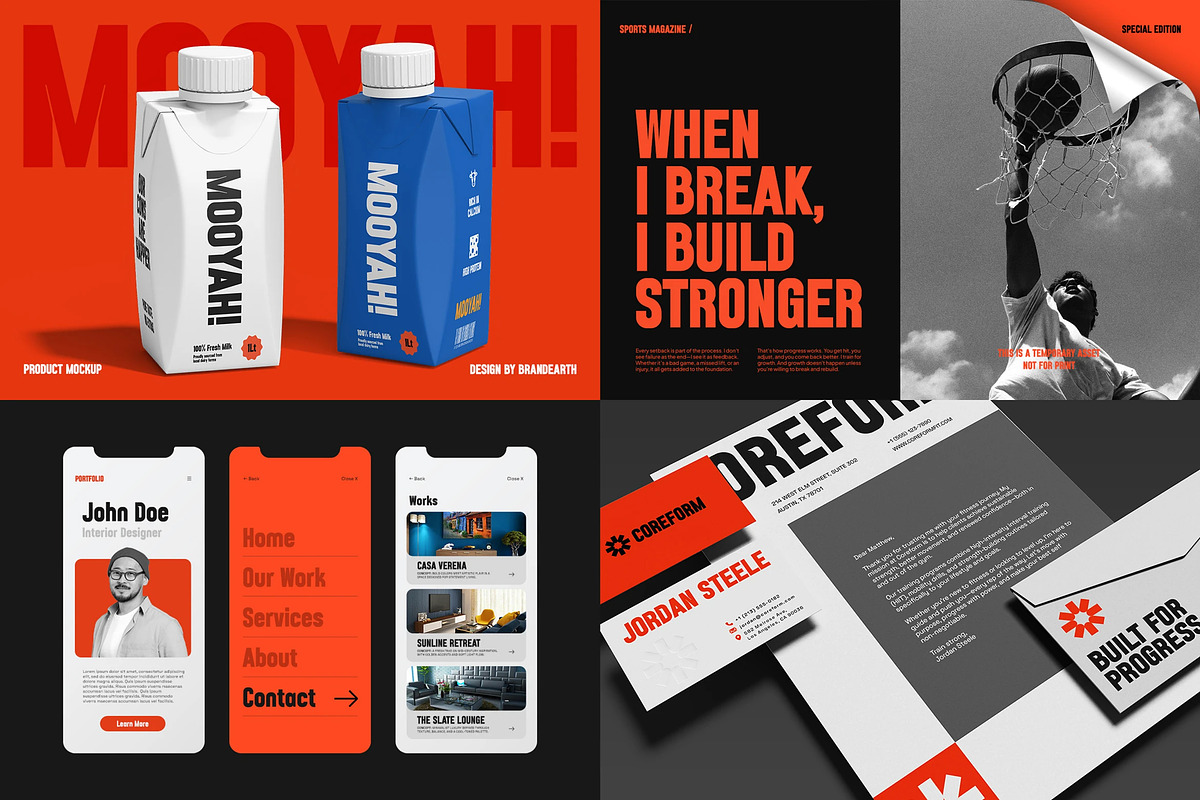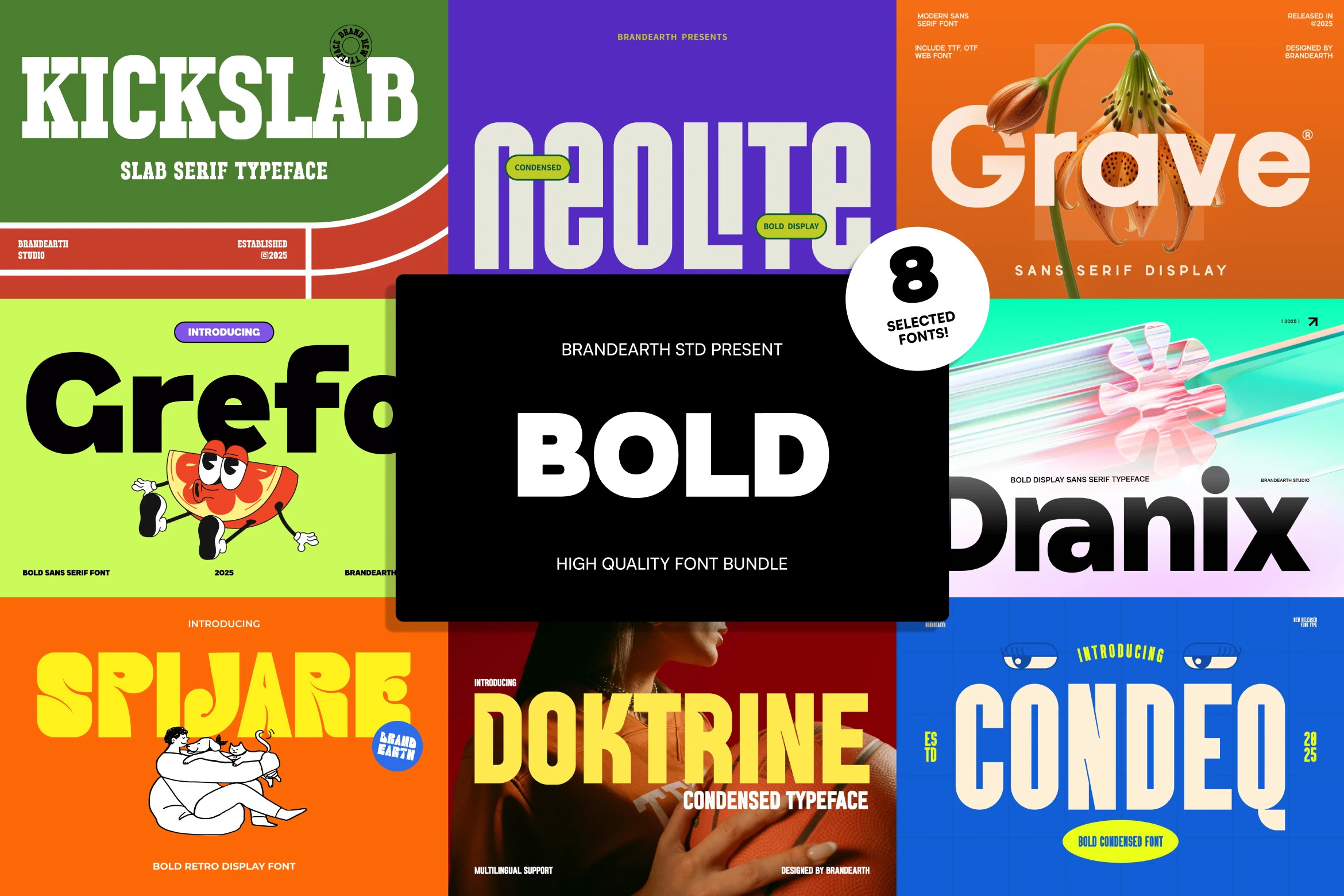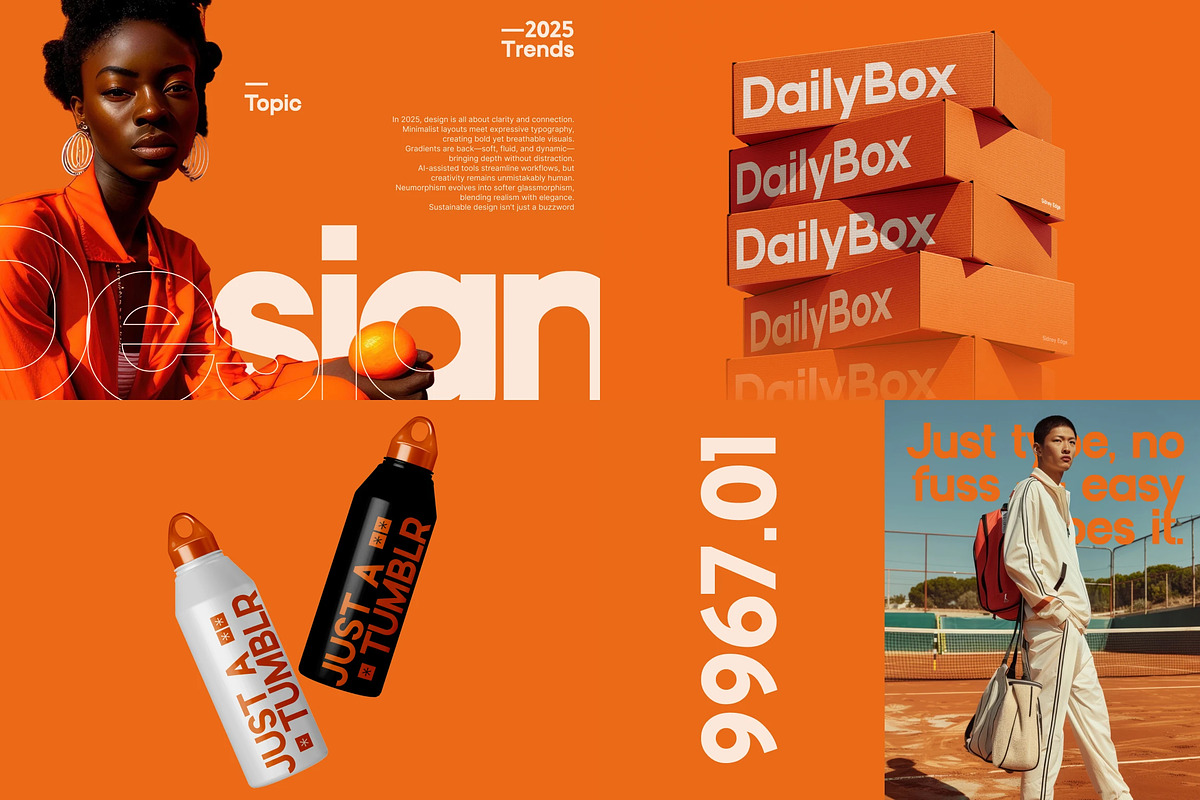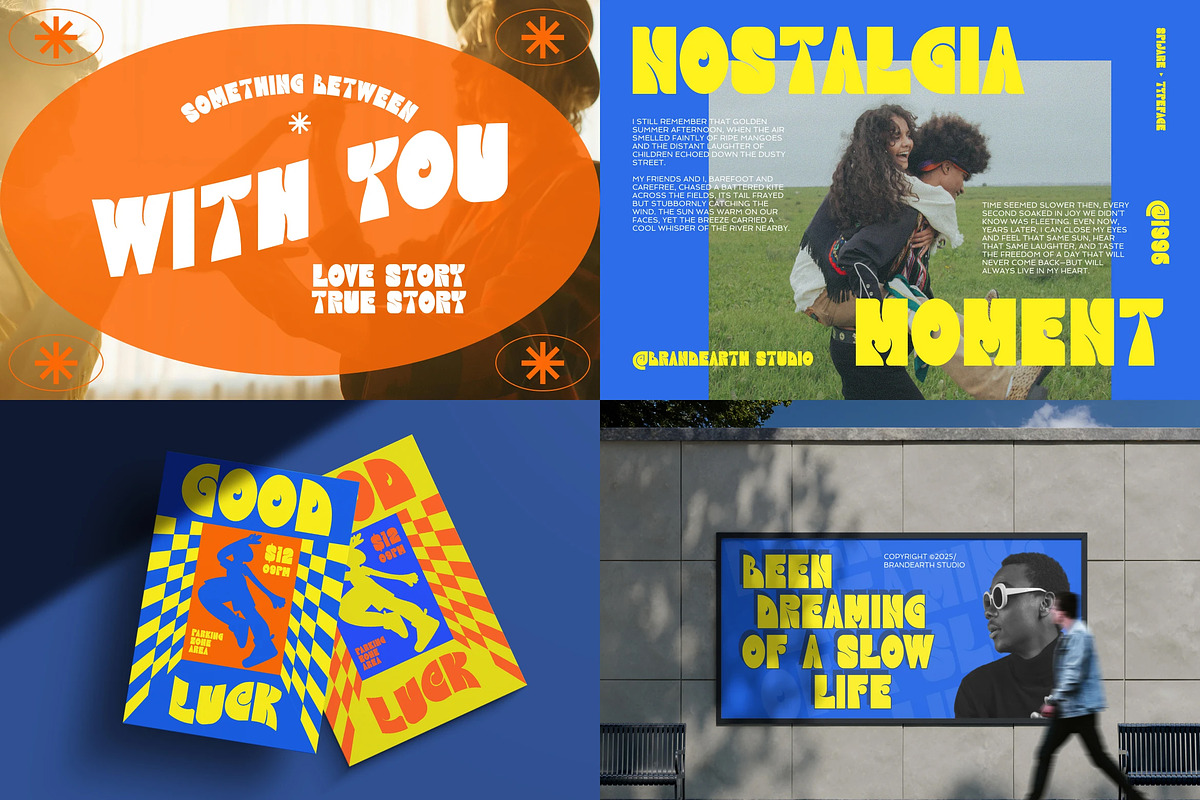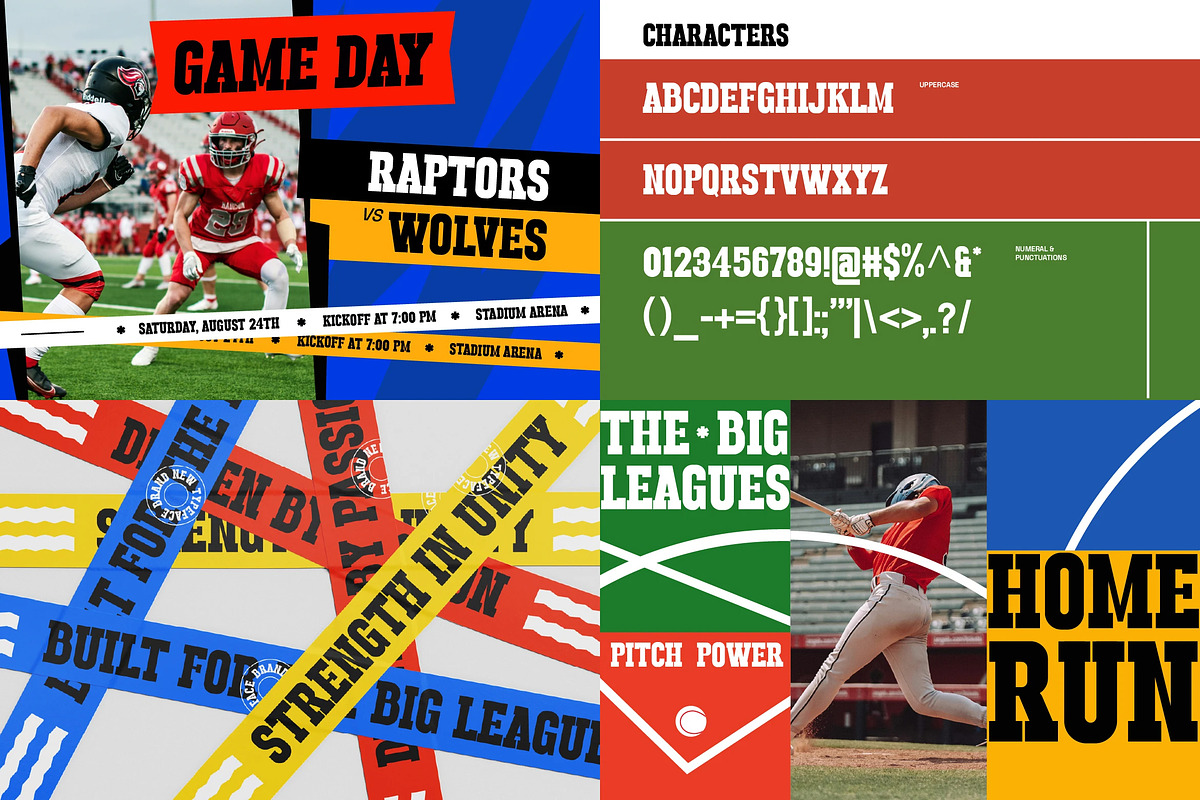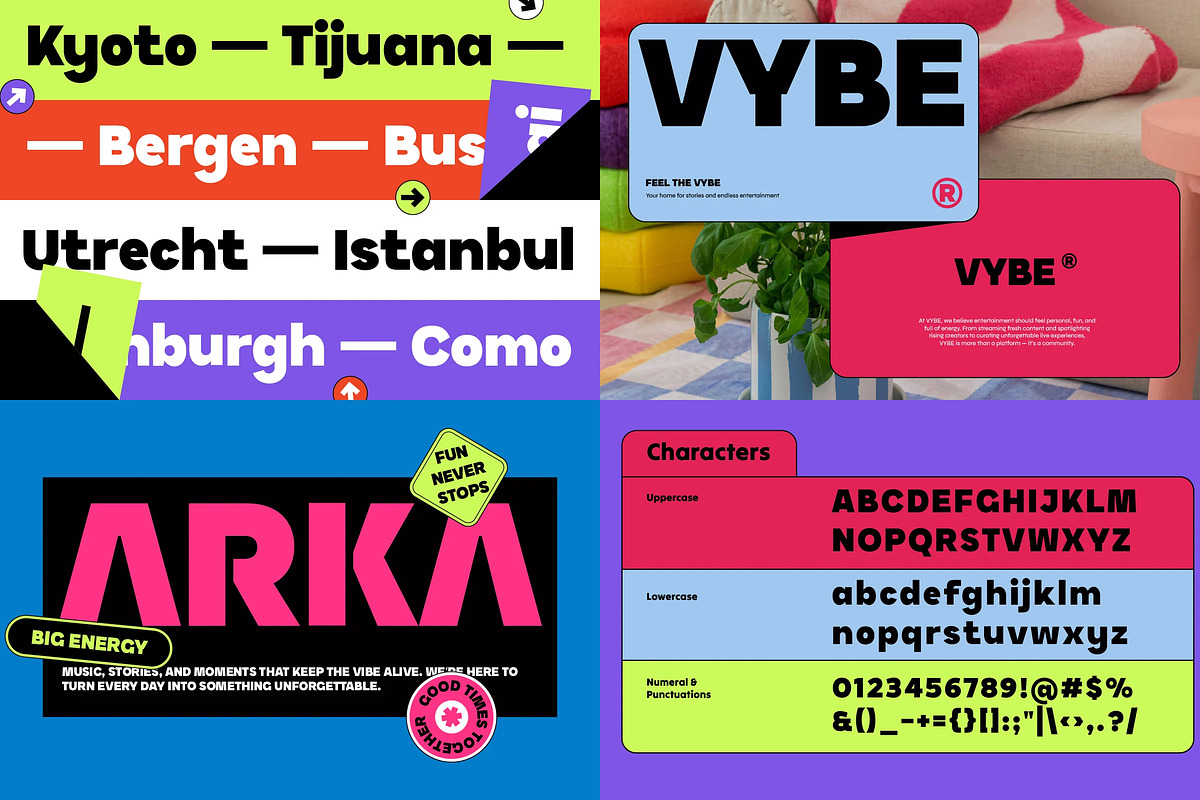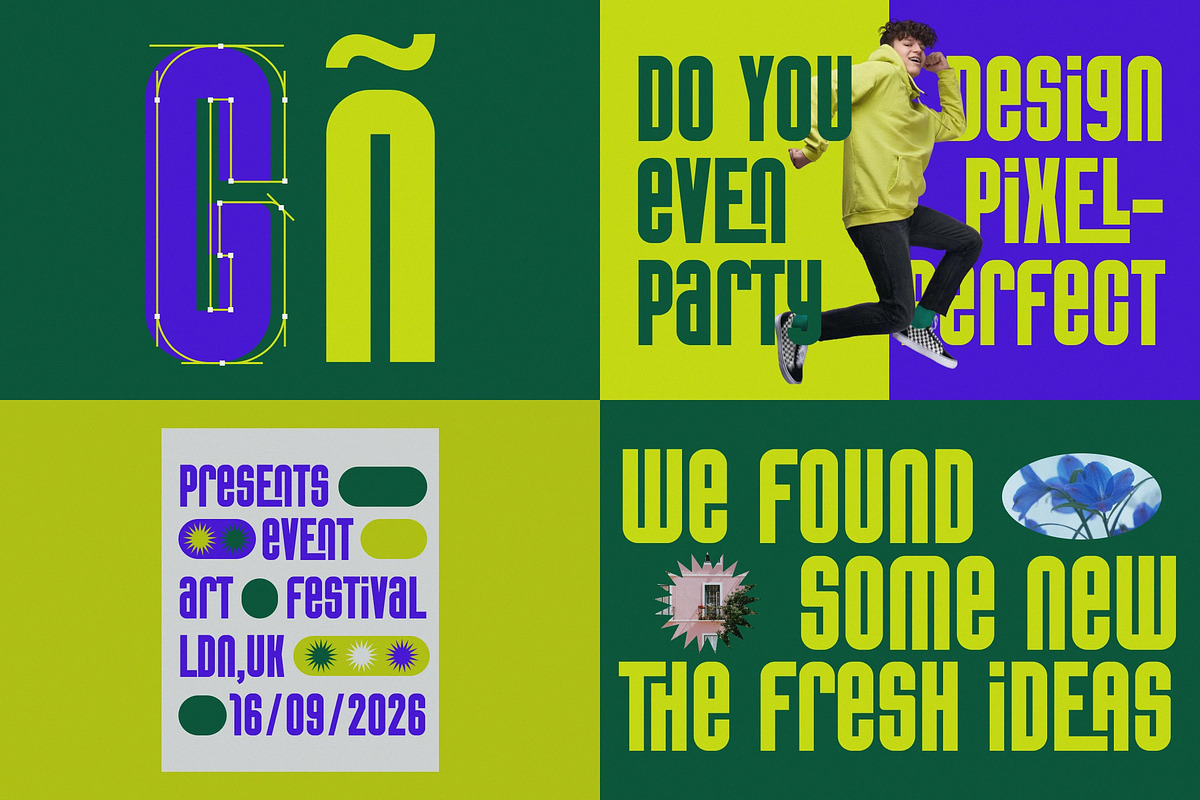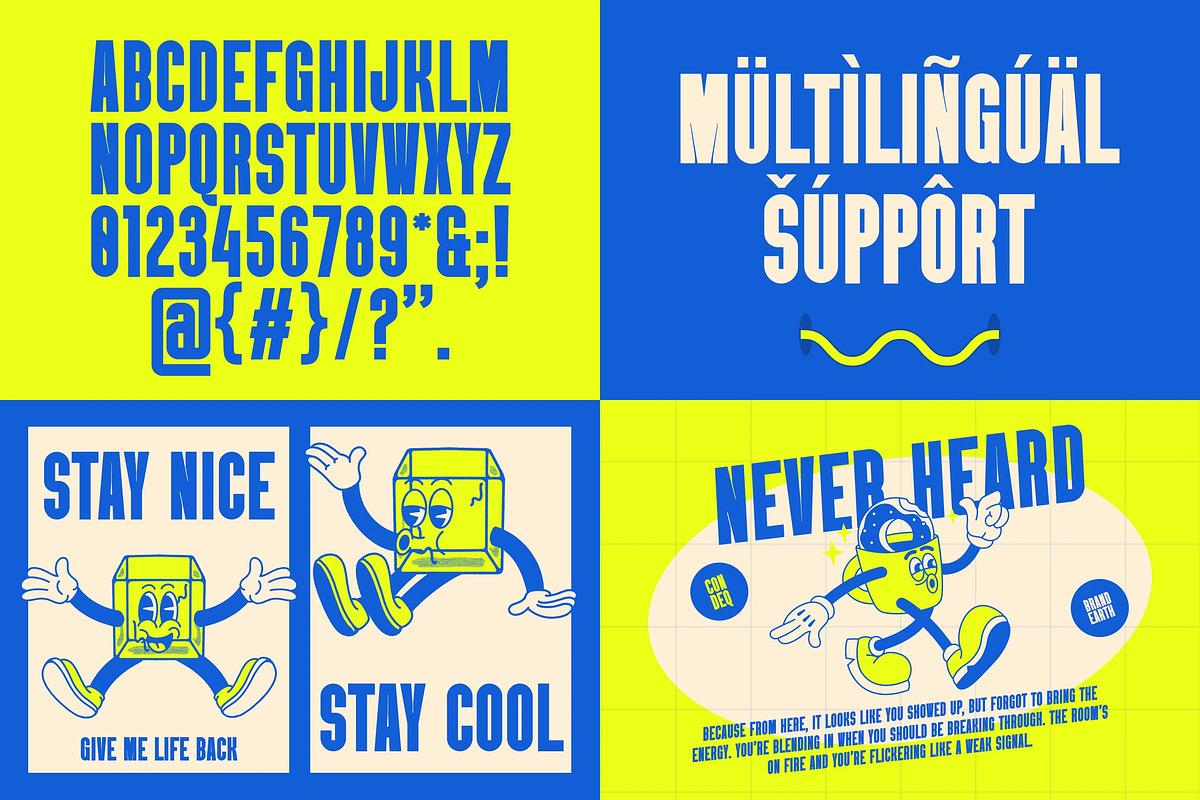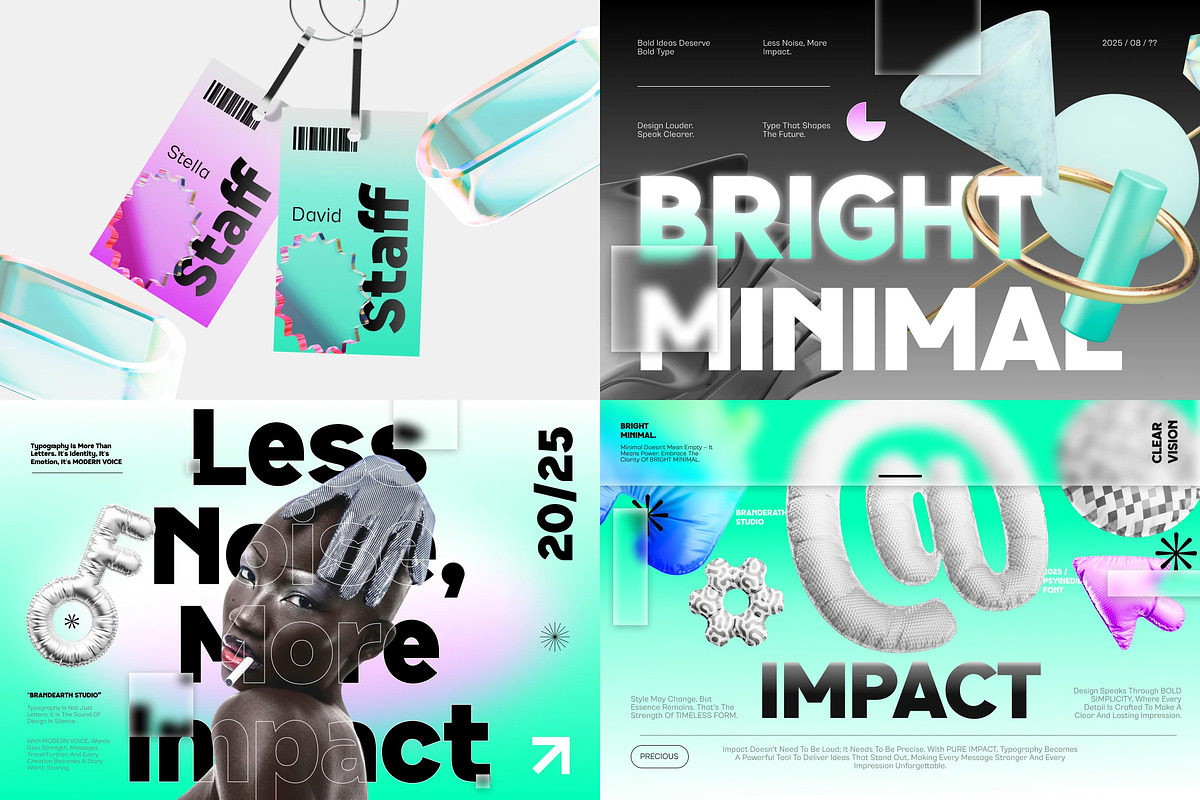
Bold Display – 8 Font Bundle
Bold Display is a curated collection of eight high-impact typefaces, each bringing its own distinct energy while sharing a common thread of strength, confidence, and commanding presence. From the athletic power of Kickslab to the retro-futuristic punch of Neolite, the polished geometry of Grave, the playful charm of Grefo, the sleek boldness of Dranix, the psychedelic groove of Spijare, the raw urban strength of Doktrine, and the assertive precision of Condeq—this bundle captures a versatile range of moods spanning sporty, retro, corporate, and playful. Together, these eight fonts form a complete toolkit for designers who want maximum impact without sacrificing versatility.
The letterforms across this collection range from blocky slab serifs and tightly condensed structures to chunky rounded curves and heavyweight geometric shapes. Each typeface carries its own rhythm—some sharp and athletic, others playful and groovy—giving you the flexibility to match the perfect font to your brand's energy. Bold weights, confident proportions, and multilingual character sets are woven throughout, ensuring every headline commands attention.
With its blend of raw visual strength and refined typographic clarity, Bold Display bridges the gap between attention-grabbing statement design and everyday brand usability. It provides the versatility to move seamlessly between sports branding, streetwear identities, and modern editorial layouts—making it ideal for logo design, event posters, packaging, and high-energy digital campaigns.
Fonts Included in This Bundle
Kickslab – Bold athletic slab serif with blocky serifs and high-impact shapes.
Neolite – Condensed geometric display with retro-futuristic Y2K energy.
Grave – Modern sans serif with clean geometry and corporate polish.
Grefo – Chunky sans serif with bouncy curves and playful character.
Dranix – Heavyweight geometric display with sharp, confident strokes.
Spijare – Retro psychedelic display font with groovy 70s-inspired curves.
Doktrine – Bold condensed sans serif with tall, athletic structure.
Condeq – Narrow condensed display font with dominant, high-impact presence.
Suitable For: sports branding, athletic apparel, event posters, streetwear packaging, logo design, editorial headlines, music covers, esports identities, tech branding, urban advertising, digital banners, album artwork, retro revival design, and bold statement campaigns.